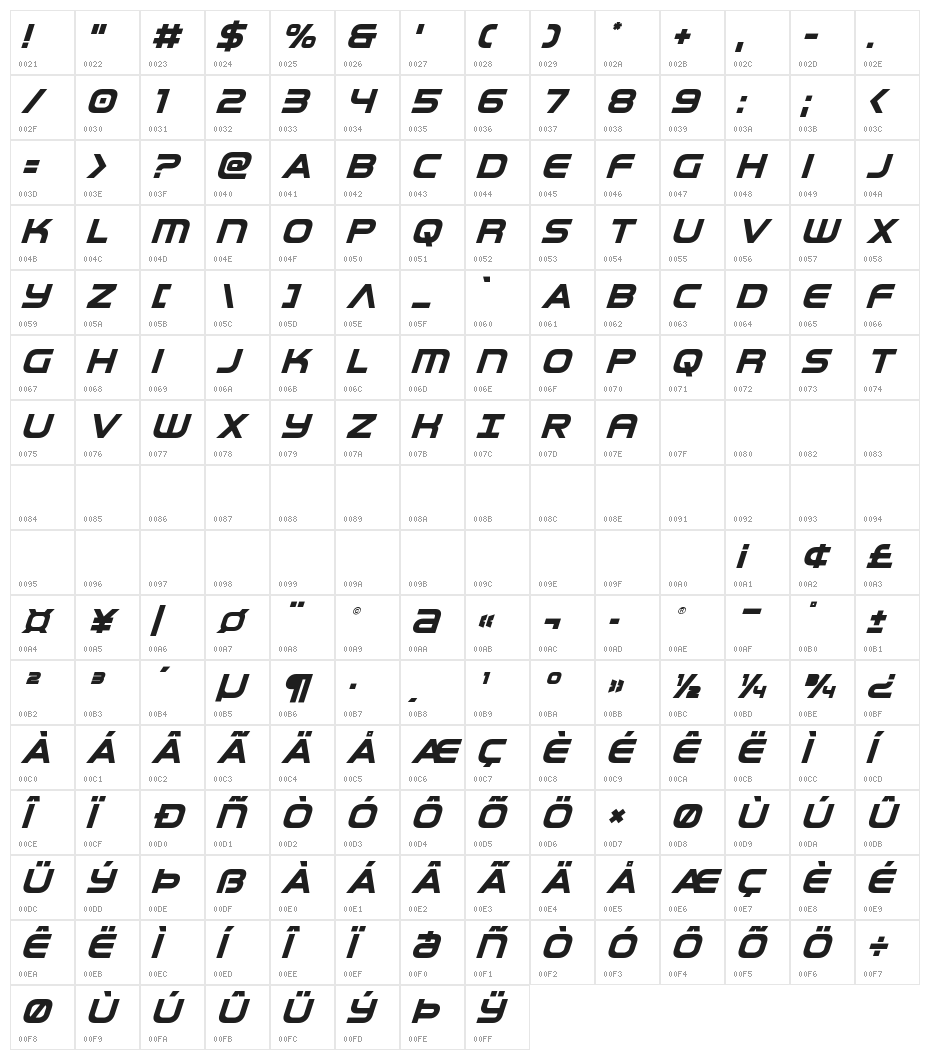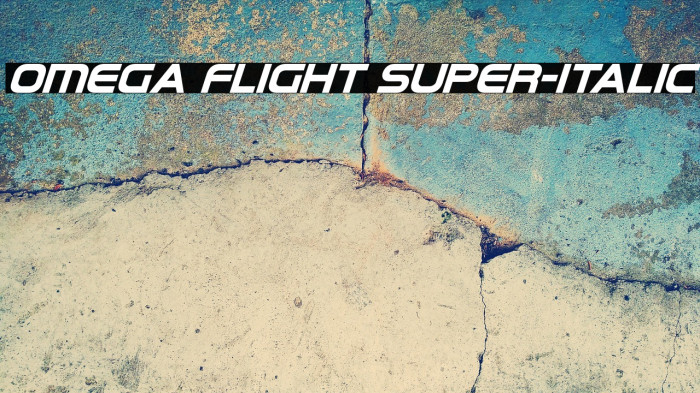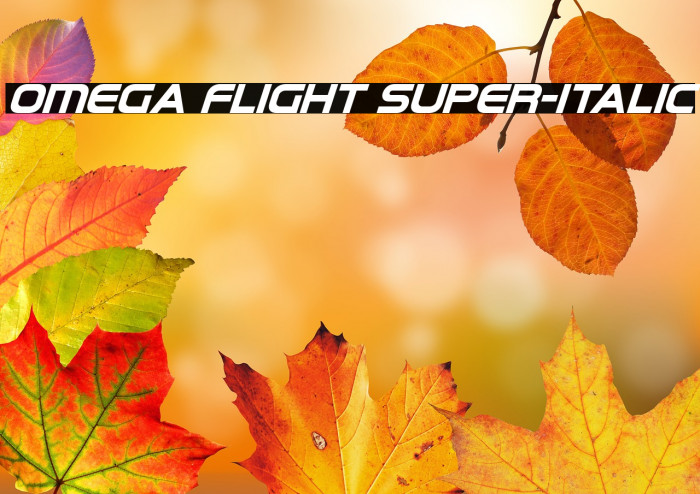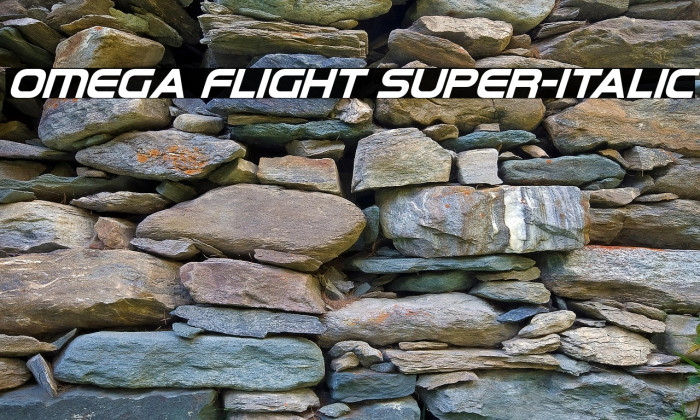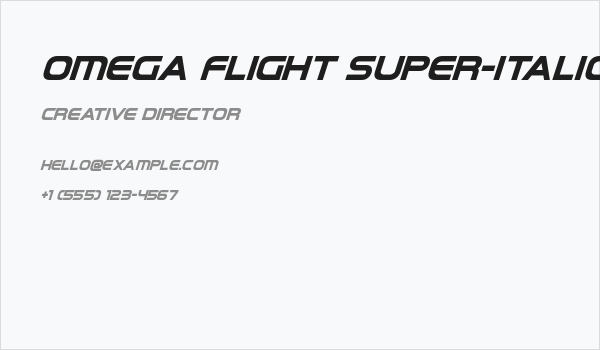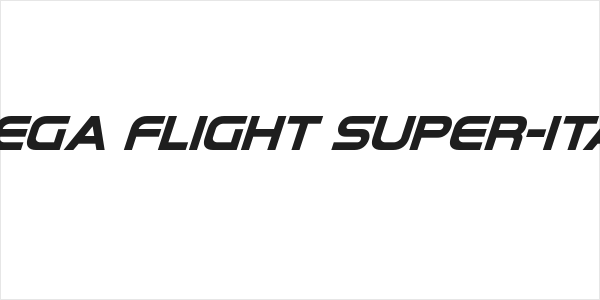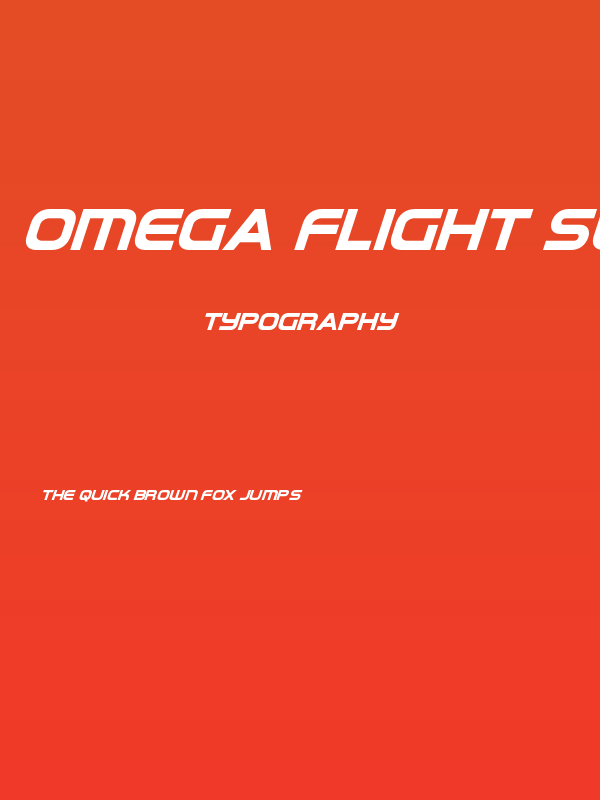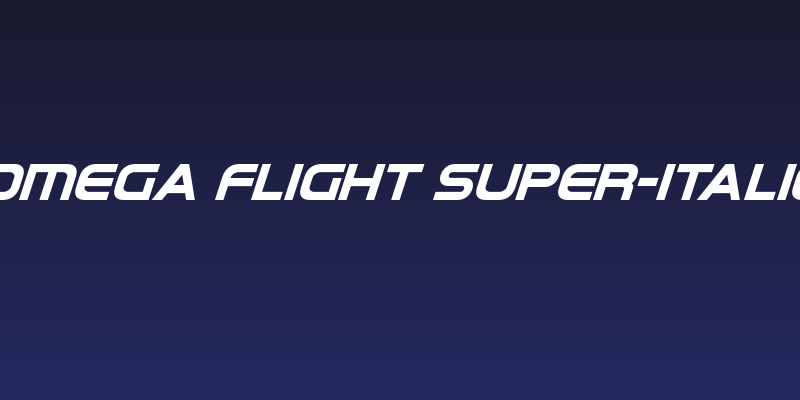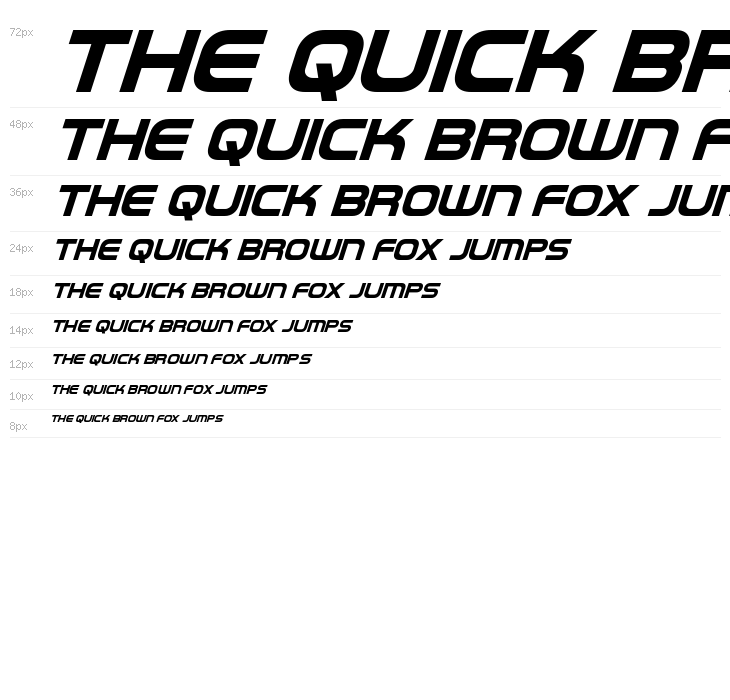
Omega Flight Super-Italic Font
Omega Flight Super-Italic Description
This font features a dynamic and futuristic design with a strong italic slant, giving it a sense of motion and speed. The characters are bold and geometric, with sharp angles and clean lines that create a modern and sleek appearance. The uppercase and lowercase letters maintain a consistent style, while the numerals and special characters complement the overall aesthetic. This font is well-suited for projects that require a contemporary and energetic look, such as technology branding, sports team logos, or sci-fi themed designs. Its bold presence ensures readability while making a striking visual impact.
| Proposed Projects | Ideal for technology branding, sports logos, sci-fi themes, and dynamic headlines. |